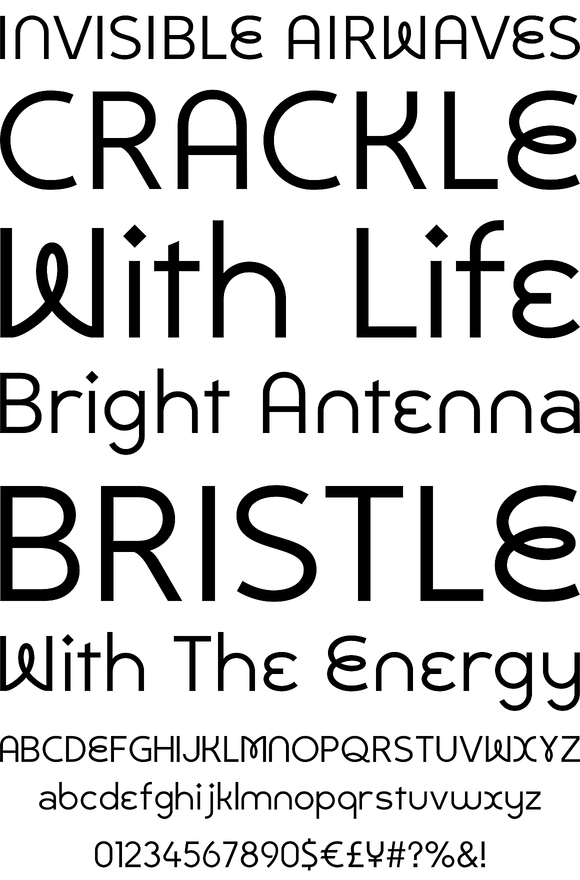
Bouclé is a monoline decorative typeface family of three subfamilies - Plain, Round and Loopy. Plain and Round come in two weights - regular and bold. Bouclé Plain, as its name states, has minimal decorative features in comparison with Bouclé Round, and especially Bouclé Loopy. Thus, Bouclé Plain fonts could be better used for display text purposes. Round and Loopy fonts are reserved for highly decorative cases.